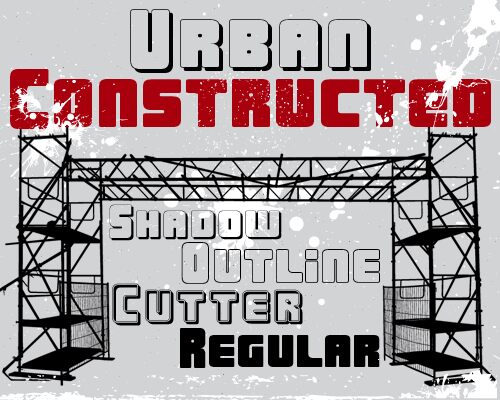
Urban Constructed Cutter by Nils von Blanc is a free cartoon display font built from broad, softly squared letters with a crisp double outline and deep offset shadow. Small punched details suggest rivets in molded toy machinery.
As an illustrated badge, it can turn a logo into part of the artwork for retro arcade games and children's packaging, where the letters resemble chunky plastic components. Merchandise and entertainment branding also suit its fabricated shapes, since the layered edges and rivet-like marks connect directly with robots, building sets, and comic illustration rather than serving as neutral lettering for young audiences alone.
Urban Constructed is a font by Nils von Blanc.
Urban Constructed
Cutter
Urban Constructed Cutter